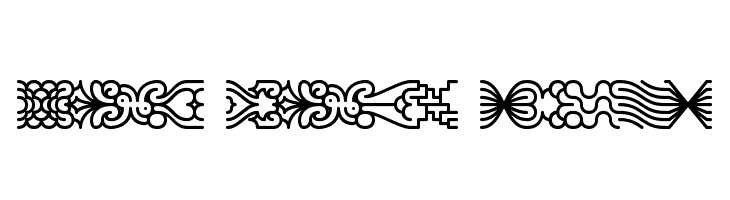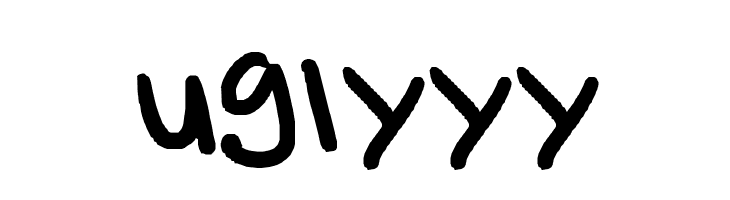
A bold, modern font with a decorative, layered design and consistent spacing.
( Fonts by Des Gomez )
A playful, hand-drawn font with tall, narrow characters and a whimsical style.
A decorative font with intricate, ornamental designs on each character.
( Fonts by Billy Argel Fonts ® )
A bold, playful handwritten font with semi-expanded width and rounded edges.
A modern, thin, and condensed sans-serif font with clean lines and elegant proportions.
( Fonts by Pedro Insfran )
A bold, geometric font with a pixelated, digital aesthetic.
( Fonts by Ingo Preuss )
A bold, modern font with strong lines and a dynamic style.
A rough, sketch-like font with dynamic, hand-drawn strokes.